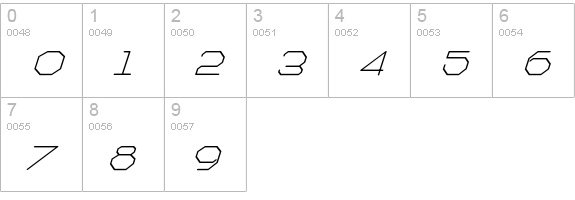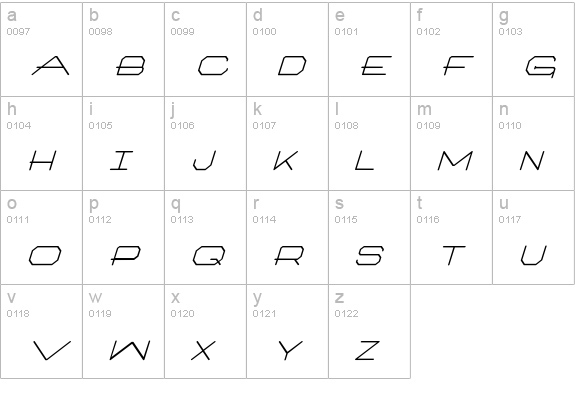
Architext-Itali font is a beautiful and elegant typeface that exudes sophistication and style. With its sleek lines and graceful curves, this font is perfect for adding a touch of class to any design project. Whether you're creating invitations, branding materials, or website graphics, Architext-Itali font will elevate your work to new heights. What's even better is that Architext-Itali font is completely free to download. You can find this stunning font available for download at FontsMarket.com, where you can easily access it and start using it in your projects right away. Don't miss out on the opportunity to enhance your designs with the timeless beauty of Architext-Itali font – download it today and take your creations to the next level.